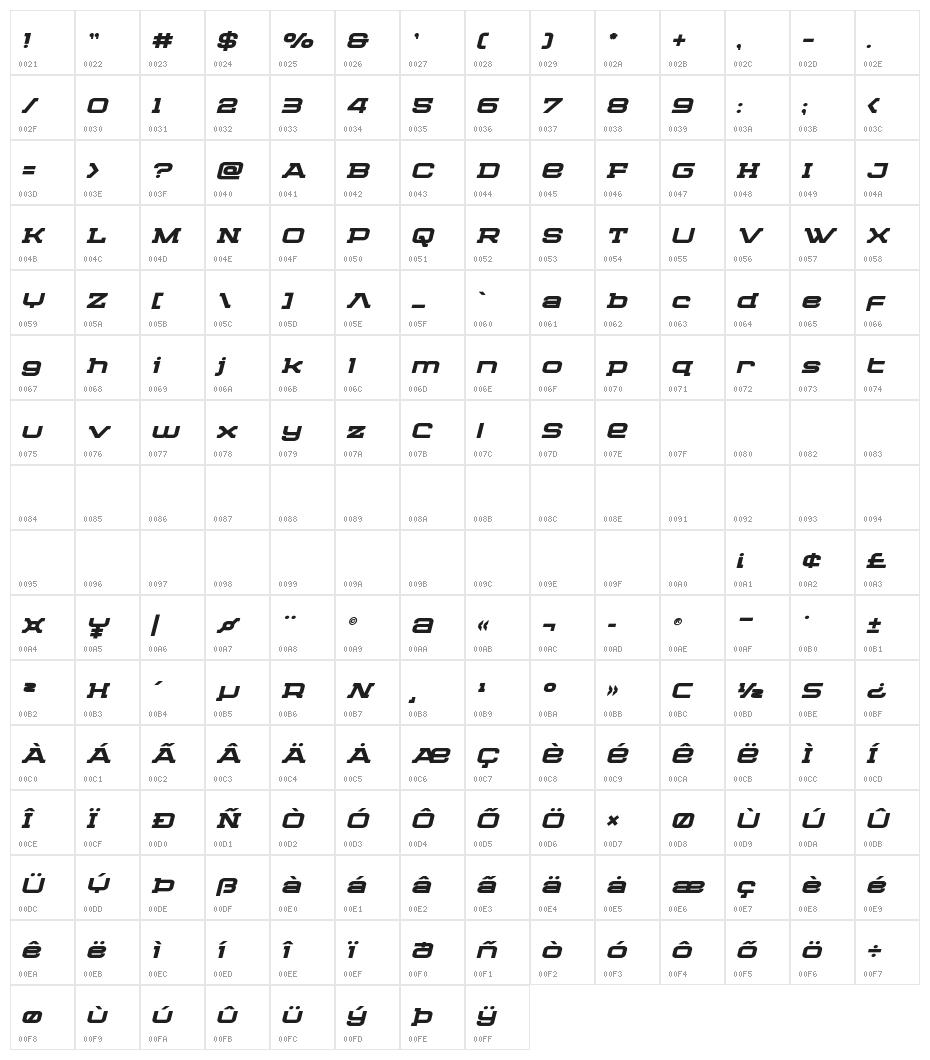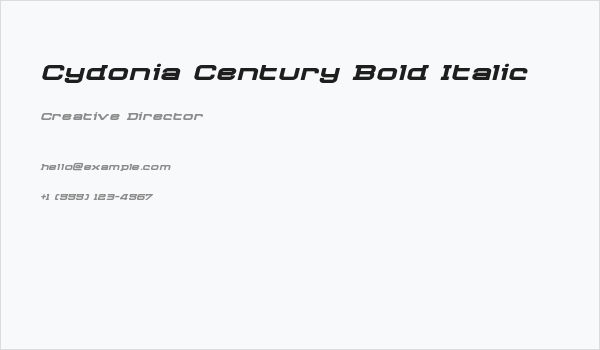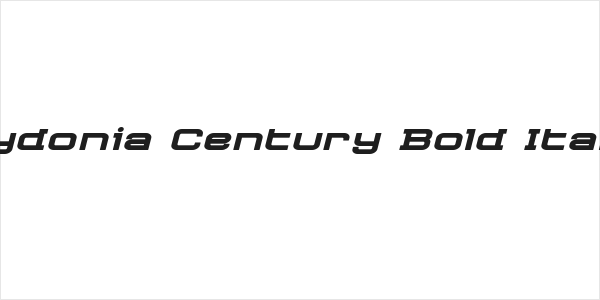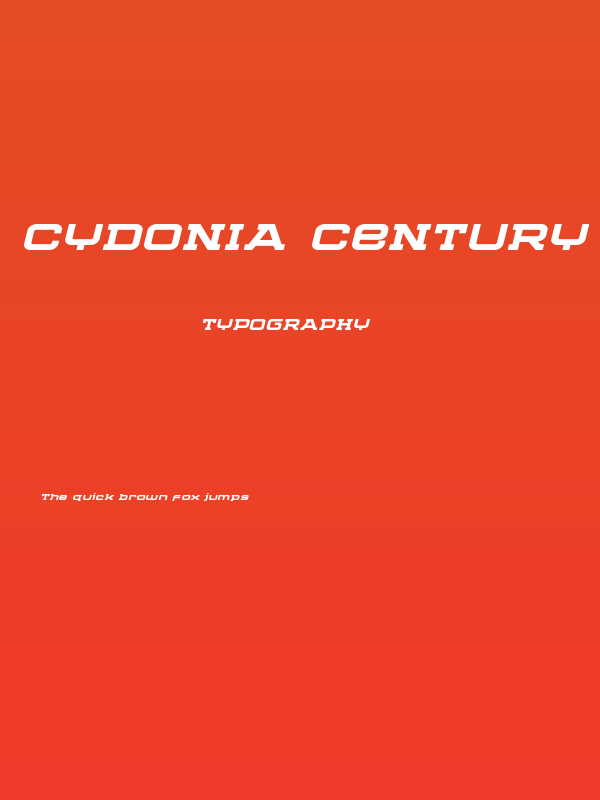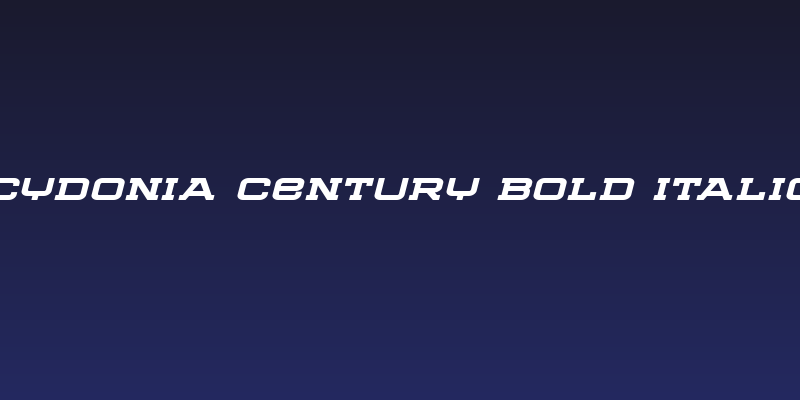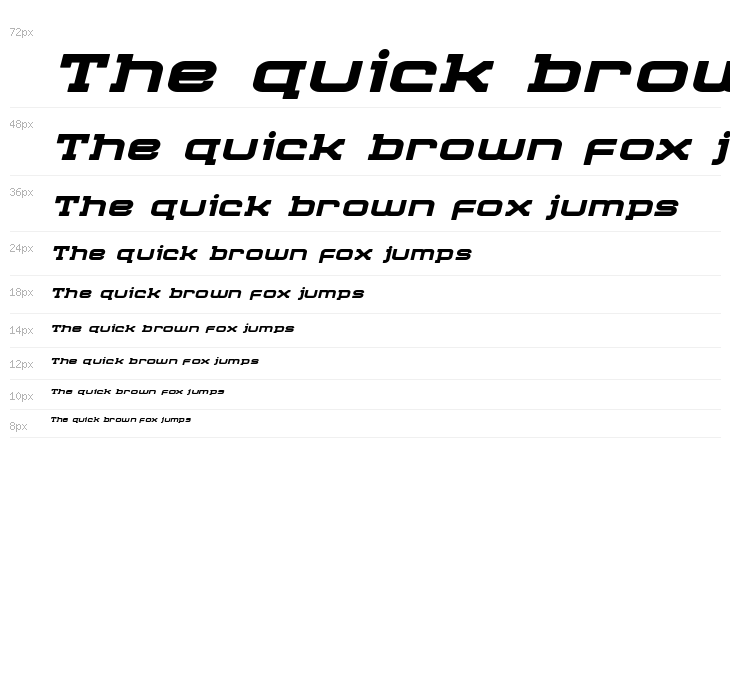
Cydonia Century Bold Italic Font
Cydonia Century Bold Italic Description
This font features a bold and italic style with a modern, futuristic aesthetic. The characters are slightly slanted, giving a sense of motion and dynamism. The strokes are thick and consistent, providing a strong visual impact. The design is clean and geometric, with sharp angles and smooth curves that create a sleek appearance. The uppercase and lowercase letters maintain a uniform style, while the numerals and special characters integrate seamlessly with the overall design. This font is ideal for projects that require a contemporary and bold look.
| Proposed Projects | Ideal for technology branding, sports team logos, futuristic posters, and video game titles. |